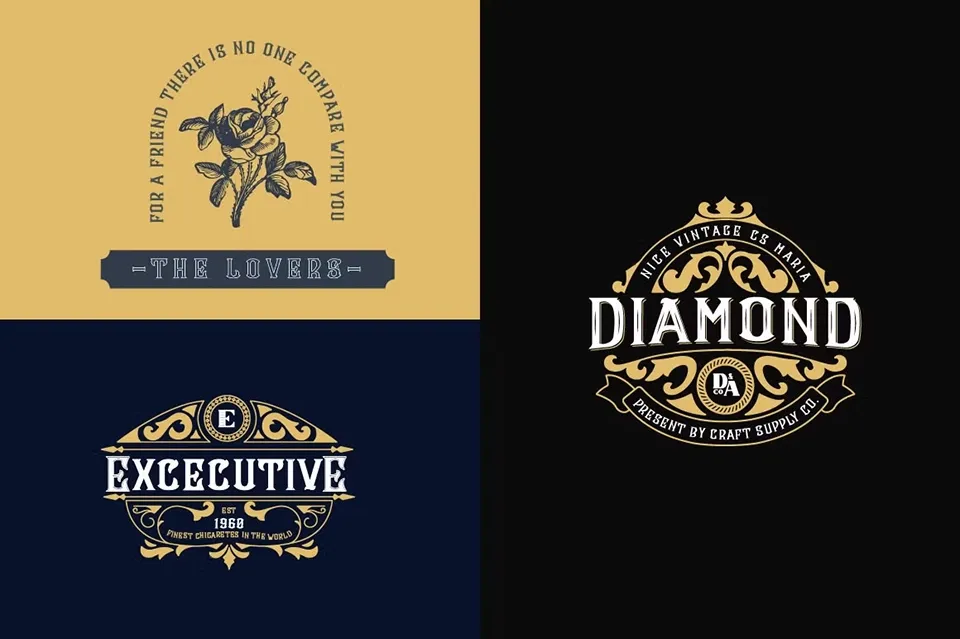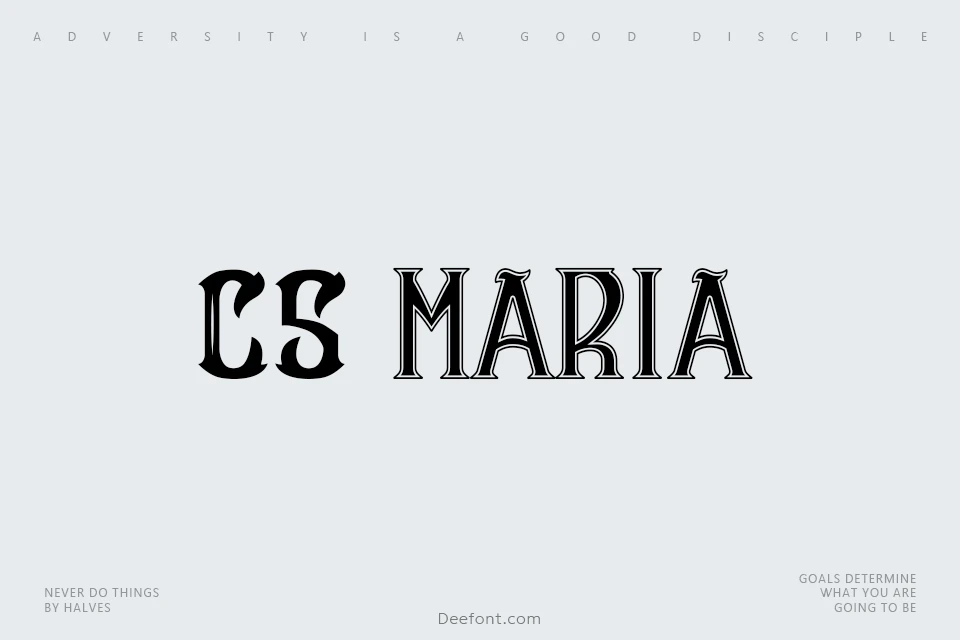
CS Maria Font
CS Maria Font, a versatile and elegant typeface family crafted to elevate your creative projects. Featuring five distinct styles—Regular, Double, Dropline, Inner, and Outline—CS Maria offers endless possibilities for design. Whether you’re working on beverage labels, logos, greeting cards, packaging, or branding, this font adds a touch of sophistication and trendiness. Its vintage-inspired aesthetic makes it ideal for retro designs, wedding invitations, book titles, and DIY crafts. With bonus ornamental graphics included, CS Maria provides the tools to make your designs truly unique. Perfect for both print and digital formats, this font family ensures your projects shine with style and creativity.